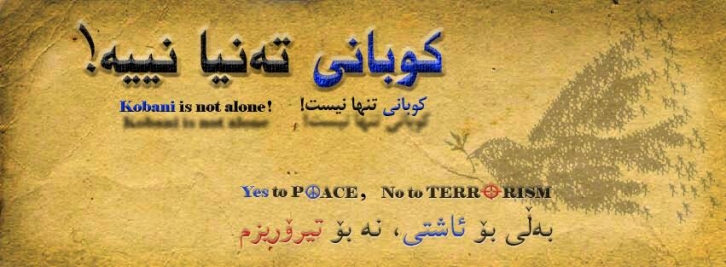
This Font Designed for support the Kobani's (Syria Kurdish Region) People.
Kobani is not alone, Yes for Peace, No for Terrorism
کۆبانی تەنیا نییە، بەڵێ بۆ ئاشتی، نا بۆ تێرۆریزم